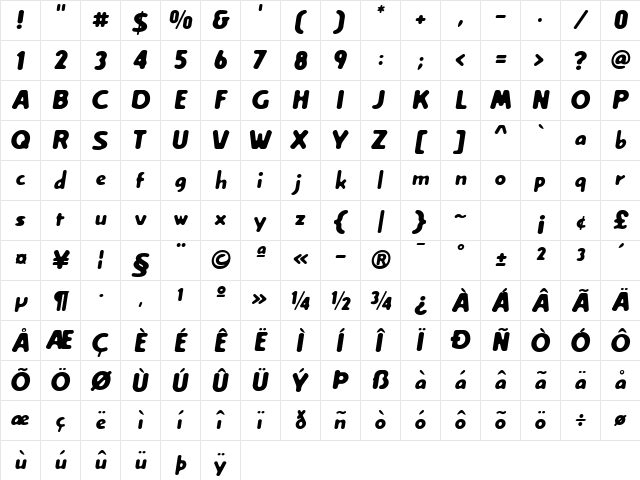
Creamexbold Regular
Design Context for Creamexbold Typeface
Creamexbold offers clean, dependable letterforms without strong stylistic allegiance, making it a practical choice for designers who need flexibility. The heavy weight commands attention and anchors typographic hierarchies.